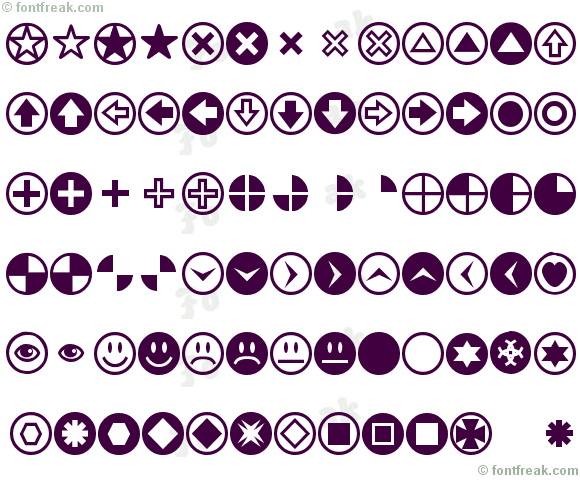
PizzaDude Bullets
About Pizzadude Bullets
Pizzadude Bullets is a distinctive display font designed by C. Jakob Fischer, characterized by its playful and whimsical style. This decorative typeface features a unique set of bullet points that act as delightful graphical elements, perfect for adding flair to your projects. The font showcases a heavy stroke weight with minimal contrast, creating a bold and impactful visual presence. Its rounded shapes and generous spacing enhance readability while maintaining a fun aesthetic, making it an excellent choice for a variety of creative applications.
Ideal for use in children's books, party invitations, and promotional materials for family-oriented events, Pizzadude Bullets adds a charming touch that captures attention. It can also be effectively used in restaurant menus, particularly for casual dining establishments looking to convey a friendly and approachable vibe. Graphic designers, small business owners, and content creators will find this font invaluable for its versatility and eye-catching design.
The target audience for Pizzadude Bullets includes those who seek to inject personality into their work. Whether you are designing engaging social media graphics or crafting unique stationery, this font provides a playful solution that resonates with a wide audience.
What sets Pizzadude Bullets apart is its ability to serve as both text and art. Instead of traditional bullet points, this font transforms mundane lists into a creative showcase, making it an essential tool for those who wish to stand out. With its free license, designers can enjoy the benefits of a high-quality font without any financial commitment. Don't miss out on the opportunity to elevate your designs; Pizzadude Bullets font free download is readily available for your next creative project.